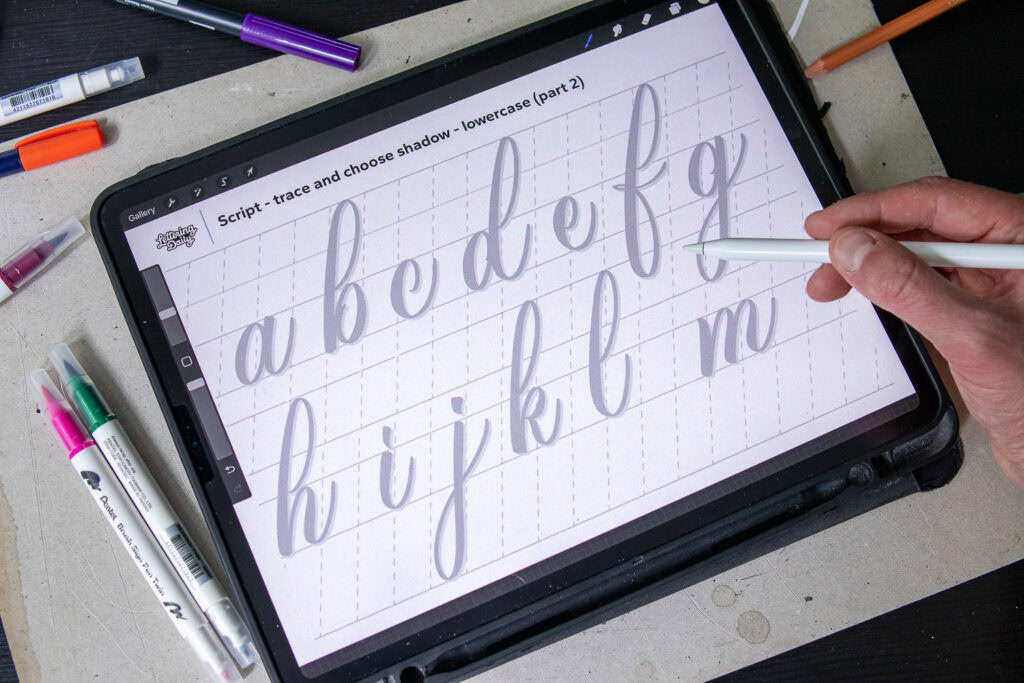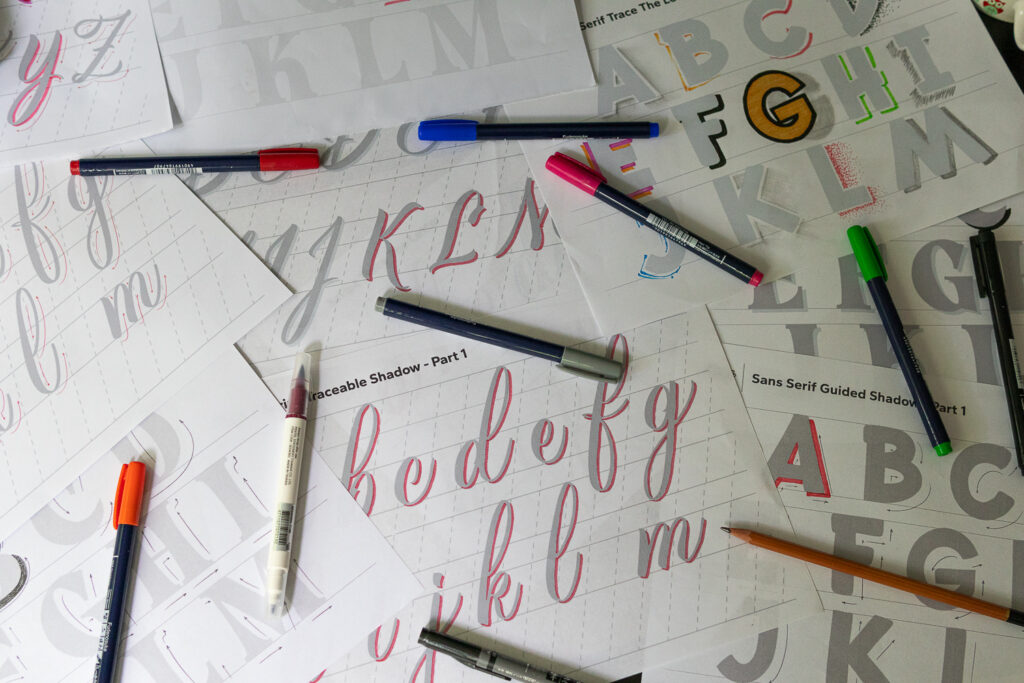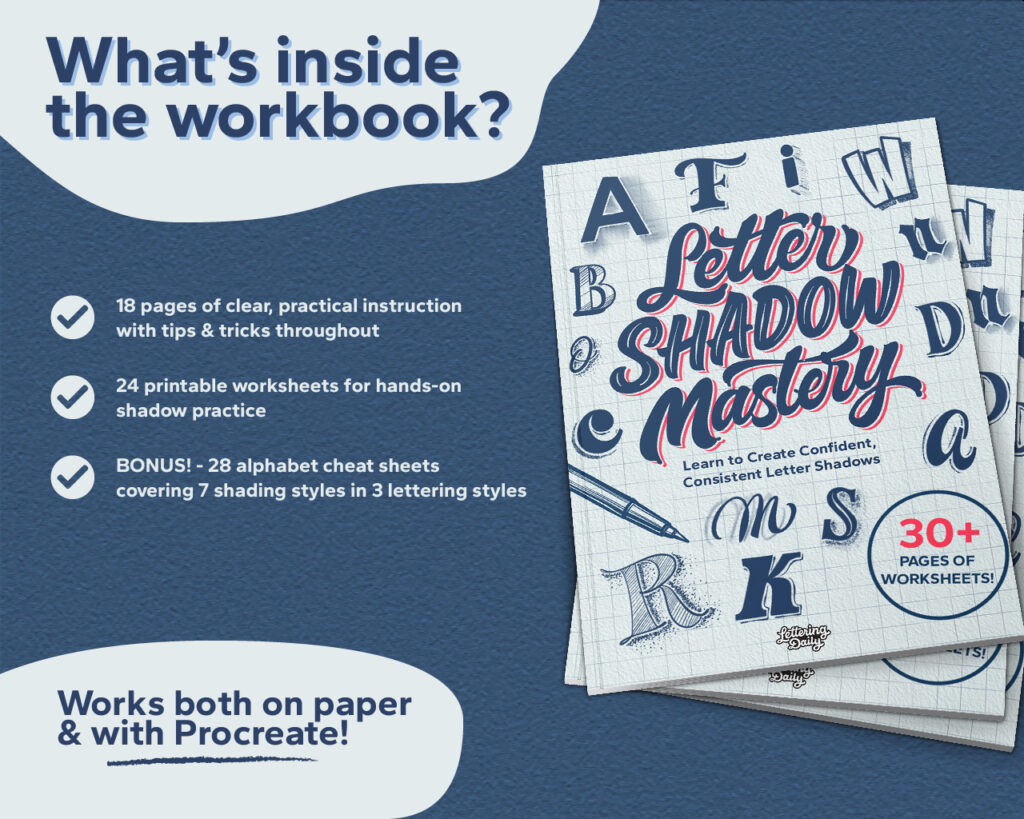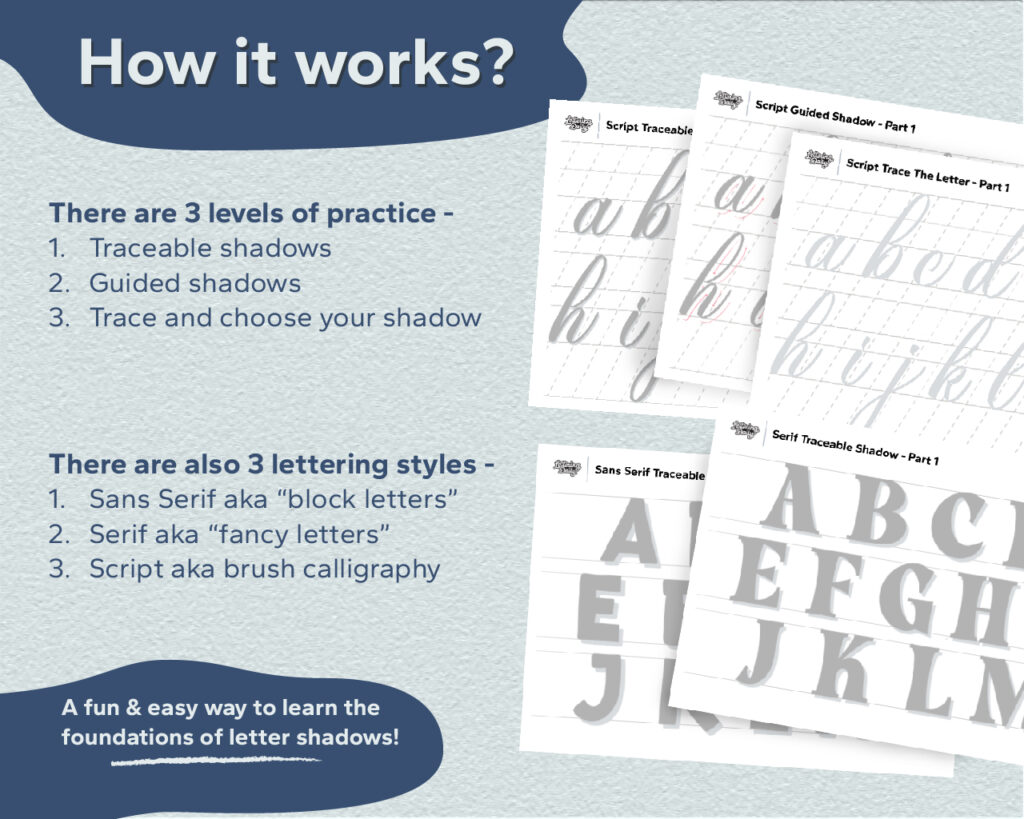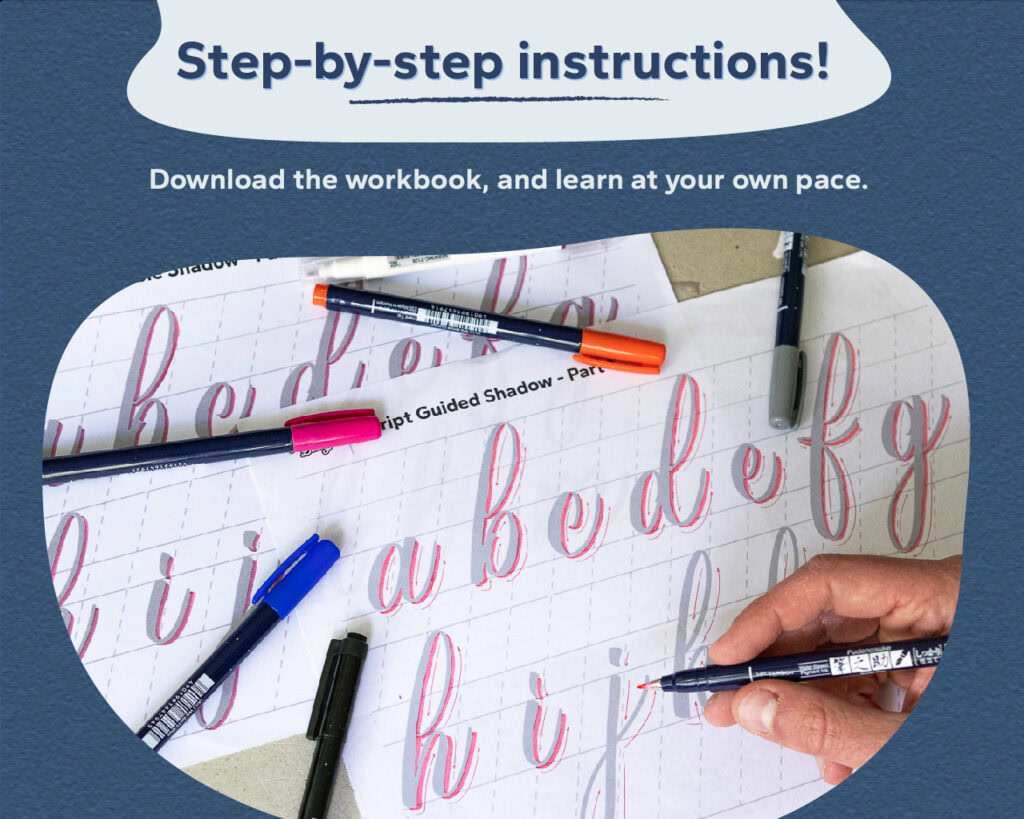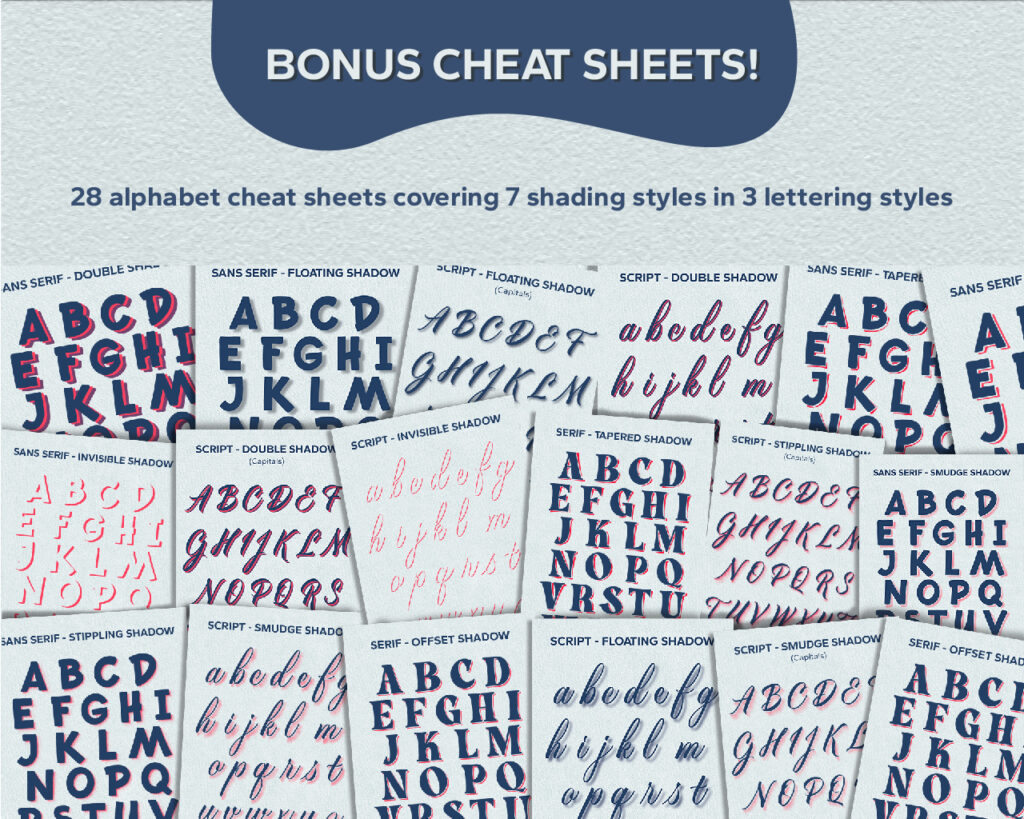
✨ Unlock the Art of Letter Shadows with the Letter Shadow Mastery Workbook
Whether you’re a hand lettering beginner or looking to add more depth and professionalism to your work, the Letter Shadow Mastery Workbook is your step-by-step guide to understanding and applying shadows across lettering styles.
This hands-on workbook walks you through the core concepts of shadowing — from light direction to spacing and style — and gives you structured, practical worksheets to train your eye and hand. With over 30+ pages of practice, it’s designed to help you build real shadowing confidence, one letter at a time.
What makes this workbook special is its layered learning system: you’ll start by tracing pre-drawn shadows, then add your own using directional cues, and finally create fully custom shadows. The progressive structure ensures that each level builds upon the last — so you not only learn the how, but also the why behind each shadow you draw.
This Practical Letter Shadow Workbook Includes:
📘 Workbook Contents:
- Introduction: How to get the most from this workbook
- Tools You’ll Need: Whether you’re working traditionally (paper & pencil) or digitally (iPad & Procreate)
- Understanding Light & Direction: The foundation of accurate shadows
- Shadowing Tips & Best Practices: Practical guidance throughout every step of the way
- 3 Lettering Styles:
- Sans Serif
- Serif
- Script
- 3 Practice Levels for Each Style:
- Trace the Shadow (Level 1)
- Guided Shadow with Light Arrows (Level 2)
- Freeform Shadow Creation (Level 3)
- Cheat Sheets: Shadow styles, direction guides, and creative inspiration
🧾 Printable Worksheets Include:
- Sans Serif: Traceable, guided, and blank shadow practice
- Serif: Traceable, guided, and blank shadow practice
- Script: Traceable, guided, and blank shadow practice
- A–Z Shadow Reference Guide: Includes multiple shadow styles for each letter